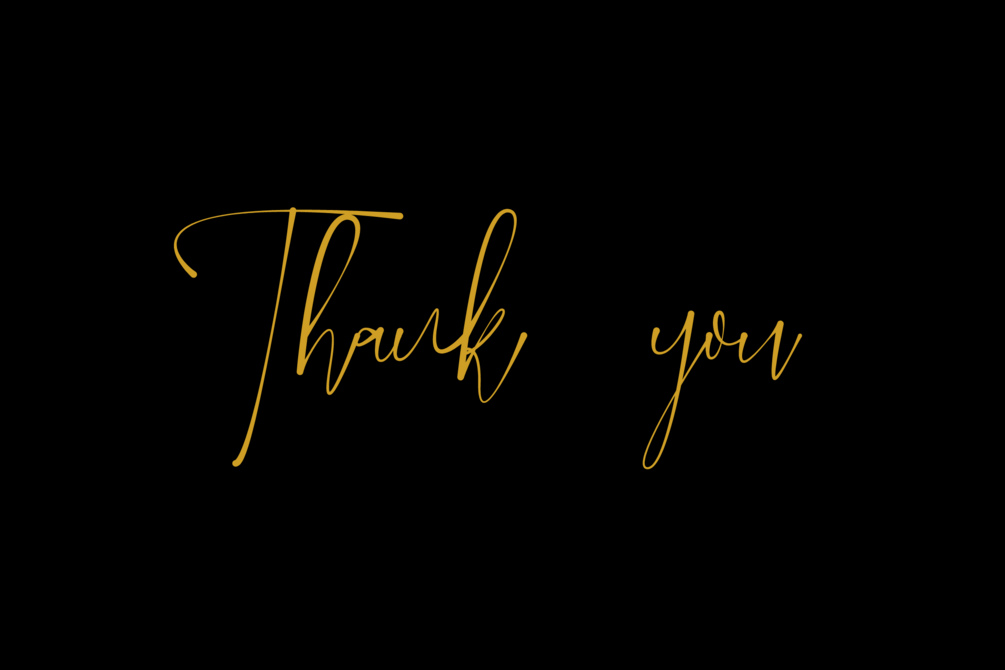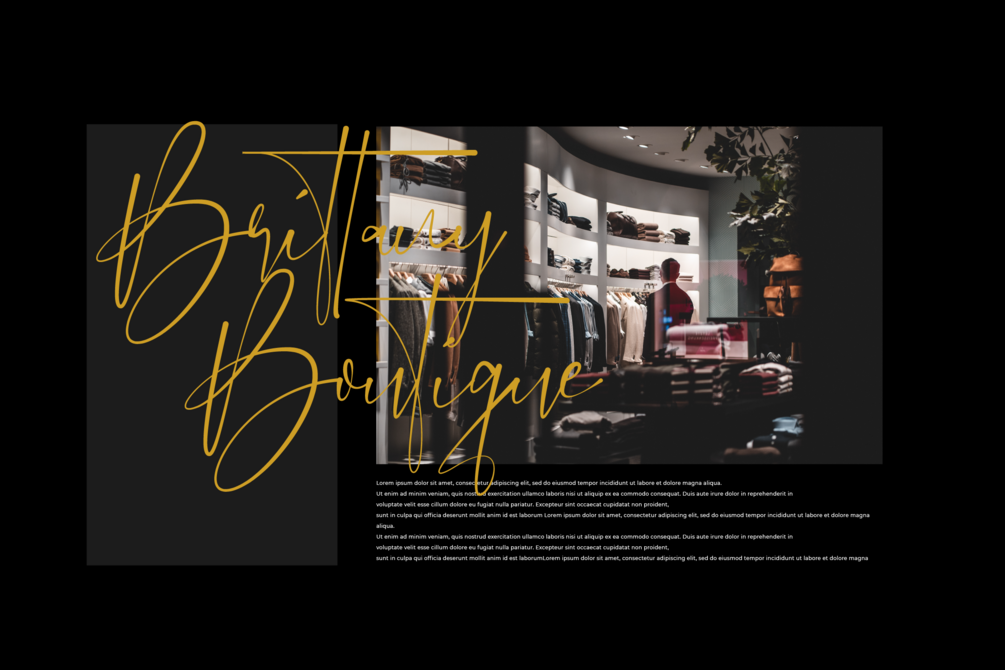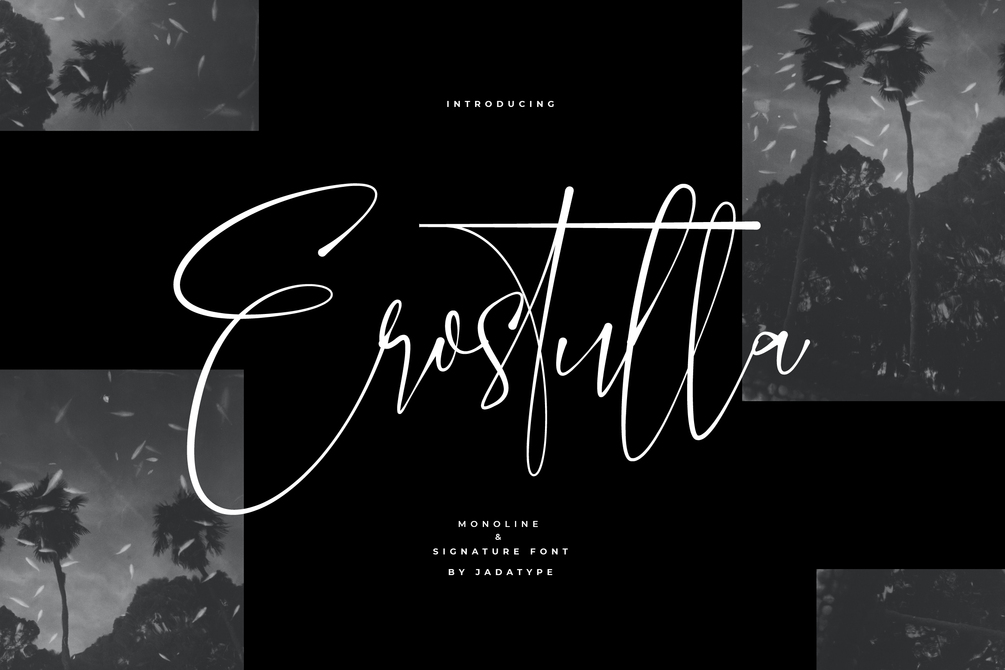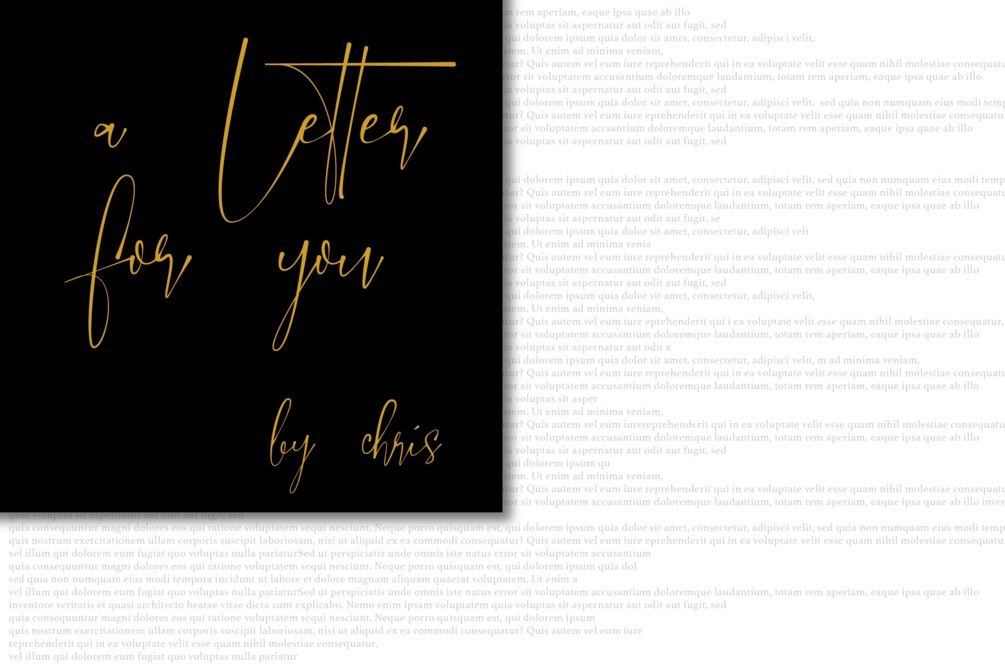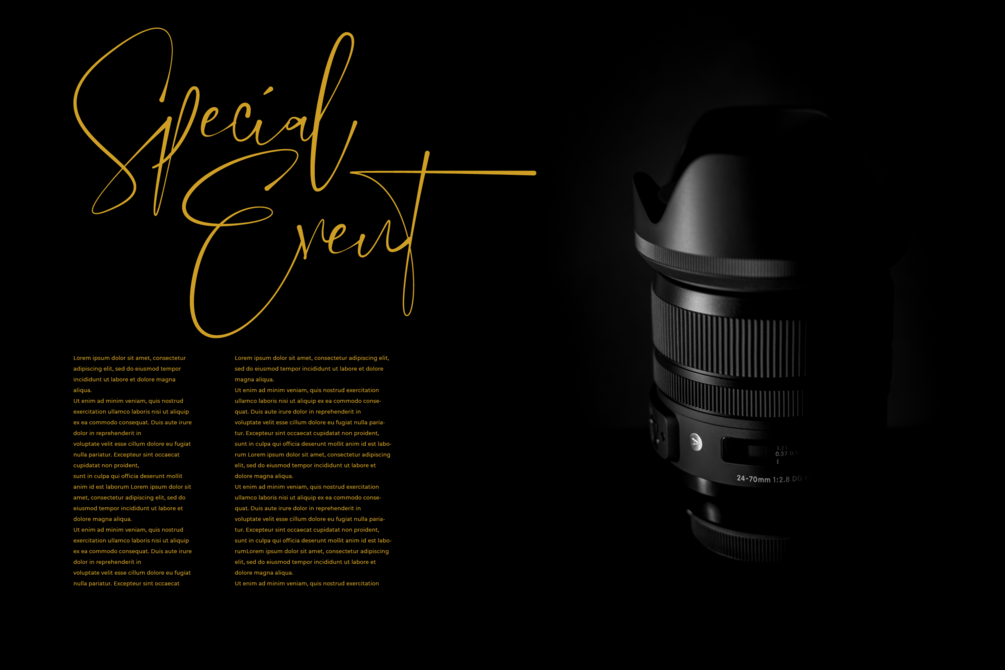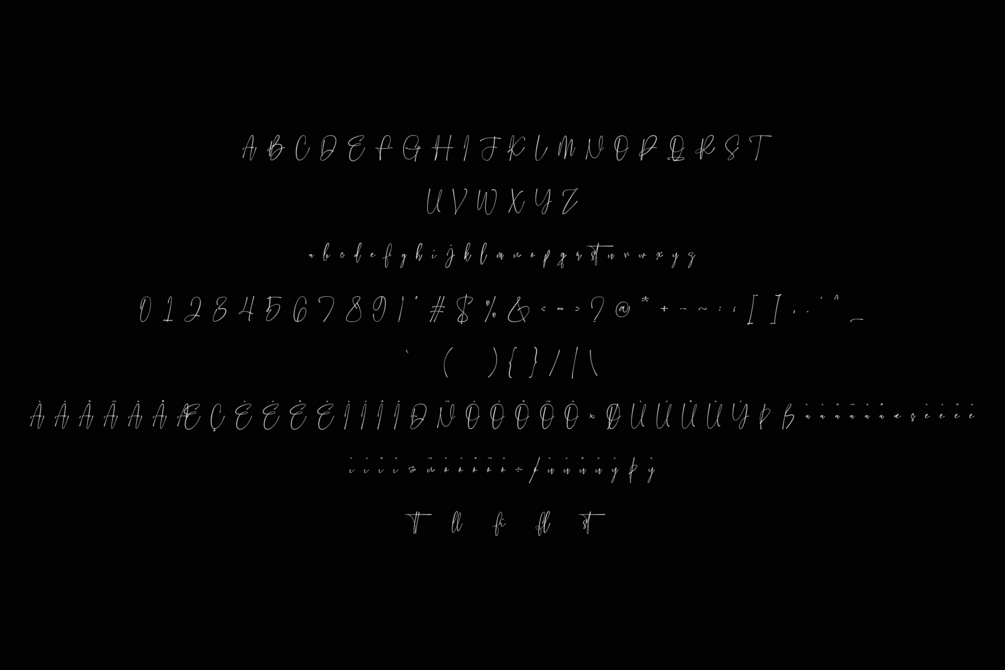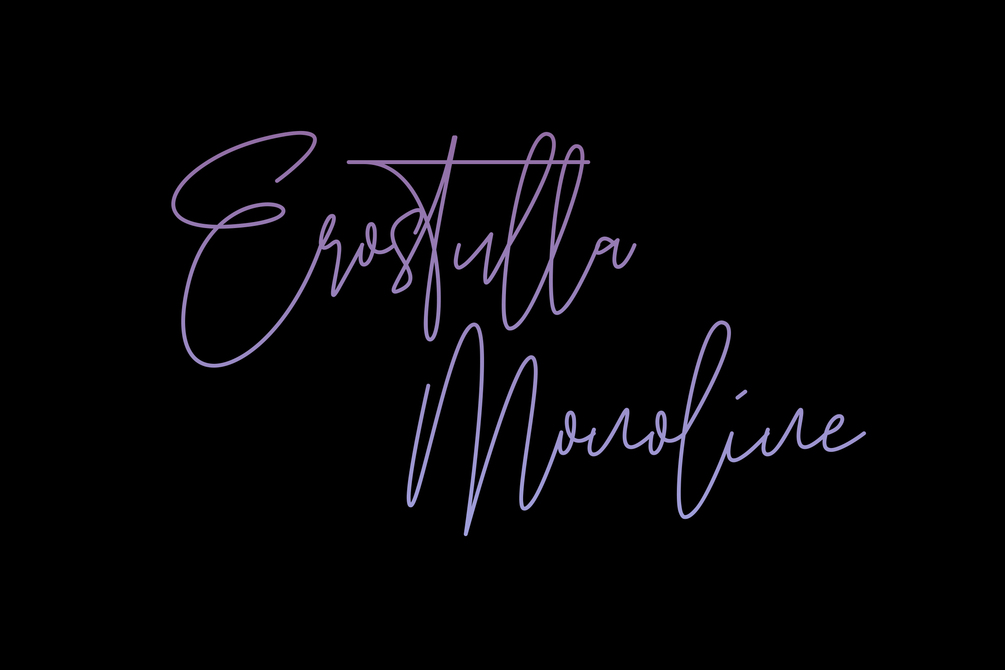
Erostulla
Erostulla is a script font that comes with a Signature Style. suitable for tshirt, branding, social media, and so on. contains standard English letters, numbers, punctuation, and several accents that support multilingualism.
• Erostulla Signature & Monoline Version